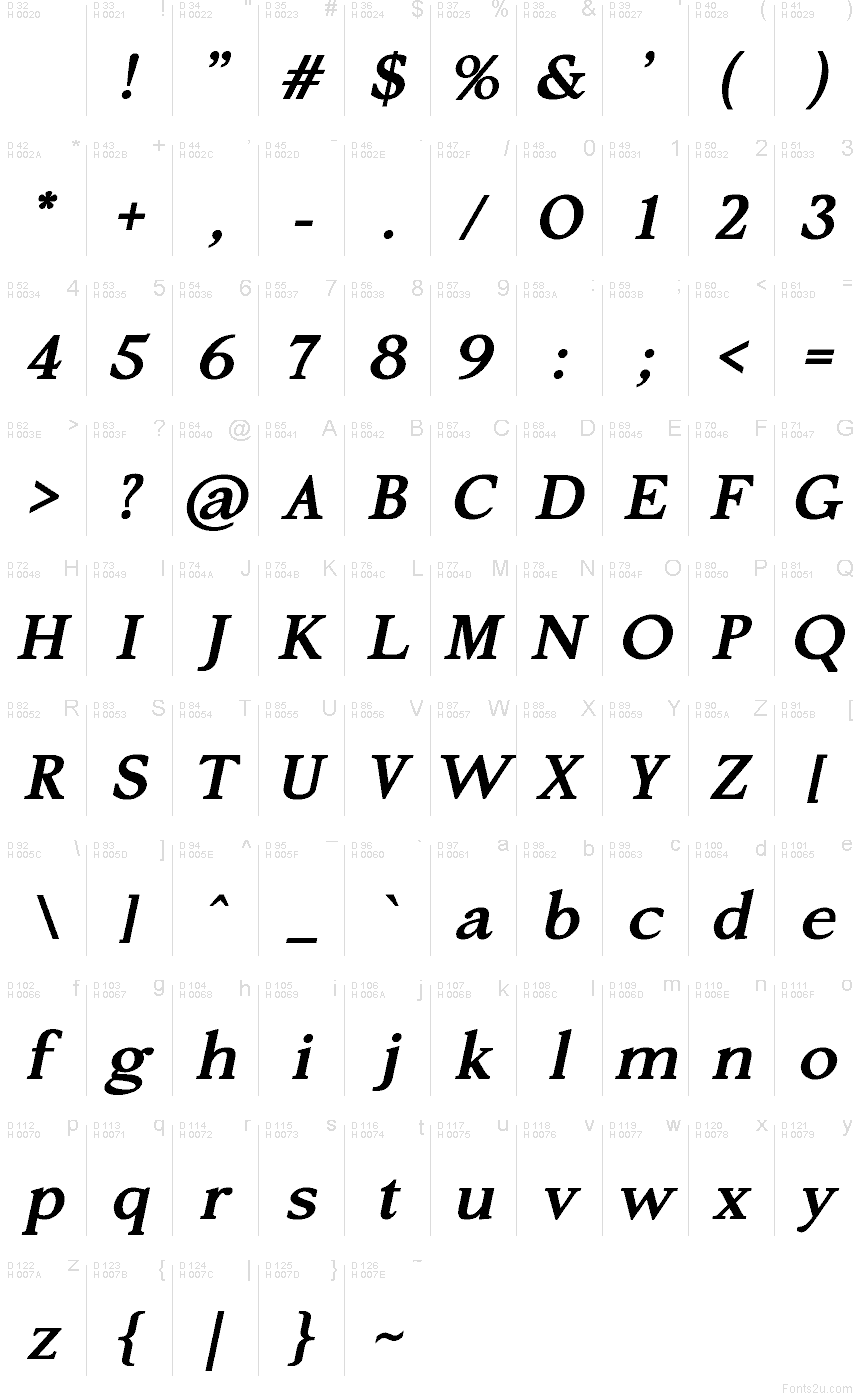
Silent Citadel Bold Italic font by Muhamad Fikry Nuralif of Fikryal Studio in the Silent Citadel family is a free serif font. Its heavy, slanted letterforms feel like cut stone-confident, fast-moving, and a little dramatic-while the crisp edges keep it from getting mushy at large sizes.
Using Silent Citadel Bold Italic, you’ll get strong presence on book covers, film titles, poster headlines, album art, editorial openers, branding wordmarks, and product packaging. Set it roomy with a touch of extra spacing so the italic sweep can breathe, then pair it with a calm grotesk sans for body copy to keep the vibe sharp and modern.